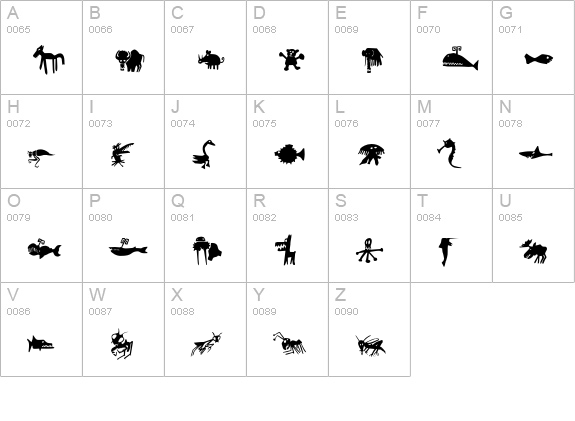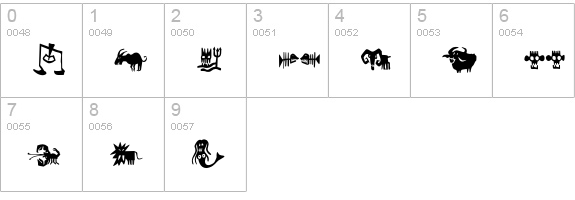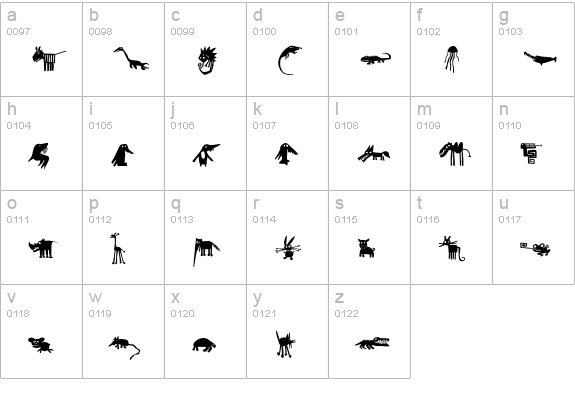
Chamaeleon Font Details
Chamaeleon font is a stunning display typeface that effortlessly combines elegance with modernity. Its unique design features intricate details and playful curves that give it a distinctive charm. This versatile font is perfect for a wide range of projects, from branding to social media graphics. With its bold yet refined look, Chamaeleon font is sure to make a statement and captivate your audience. The best part? Chamaeleon font is available for free download at FontsMarket.com. This means you can easily access this beautiful font and use it in your design projects without any cost. Don't miss out on this opportunity to enhance your creative work with the captivating Chamaeleon font. Download it today and let your creativity shine!